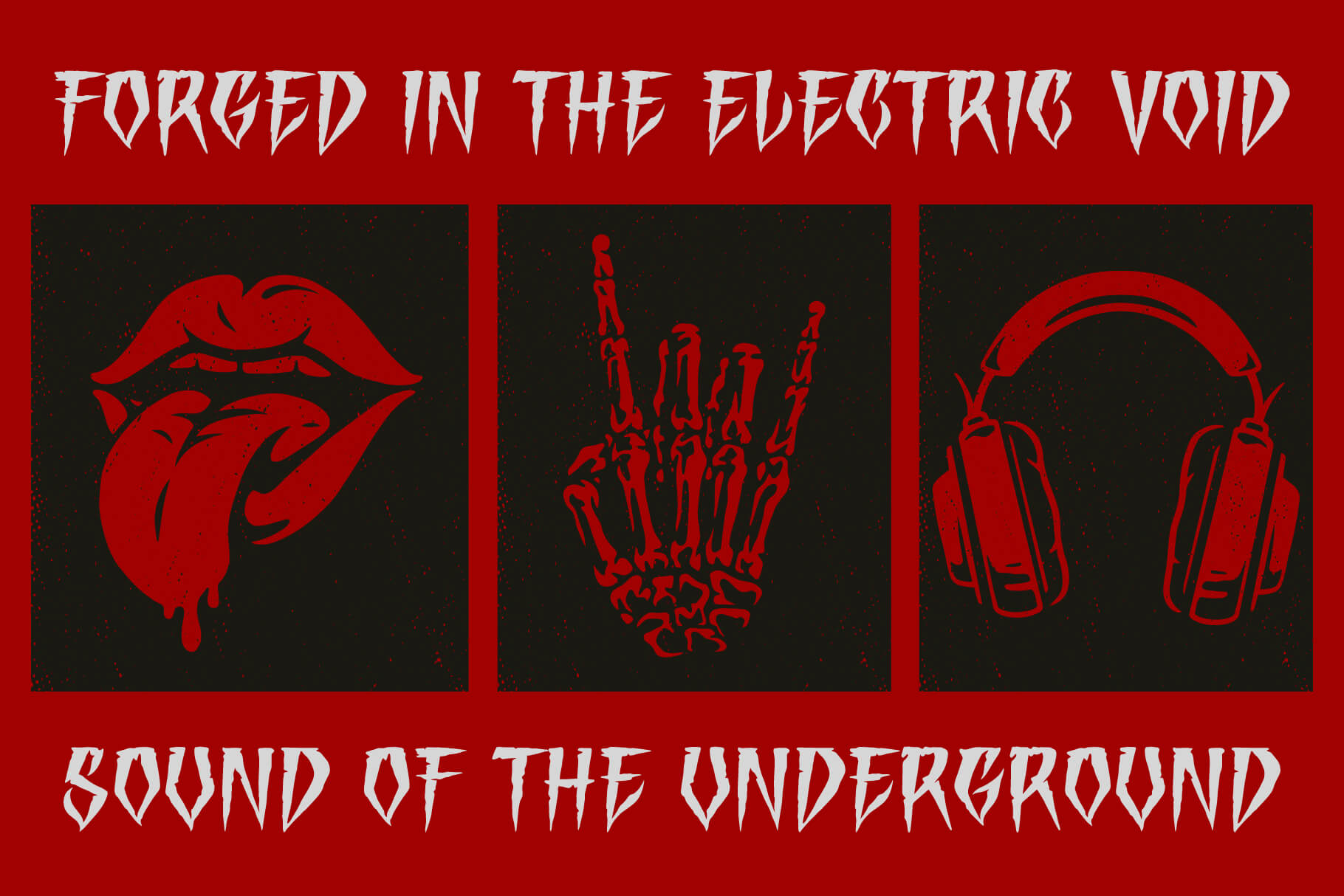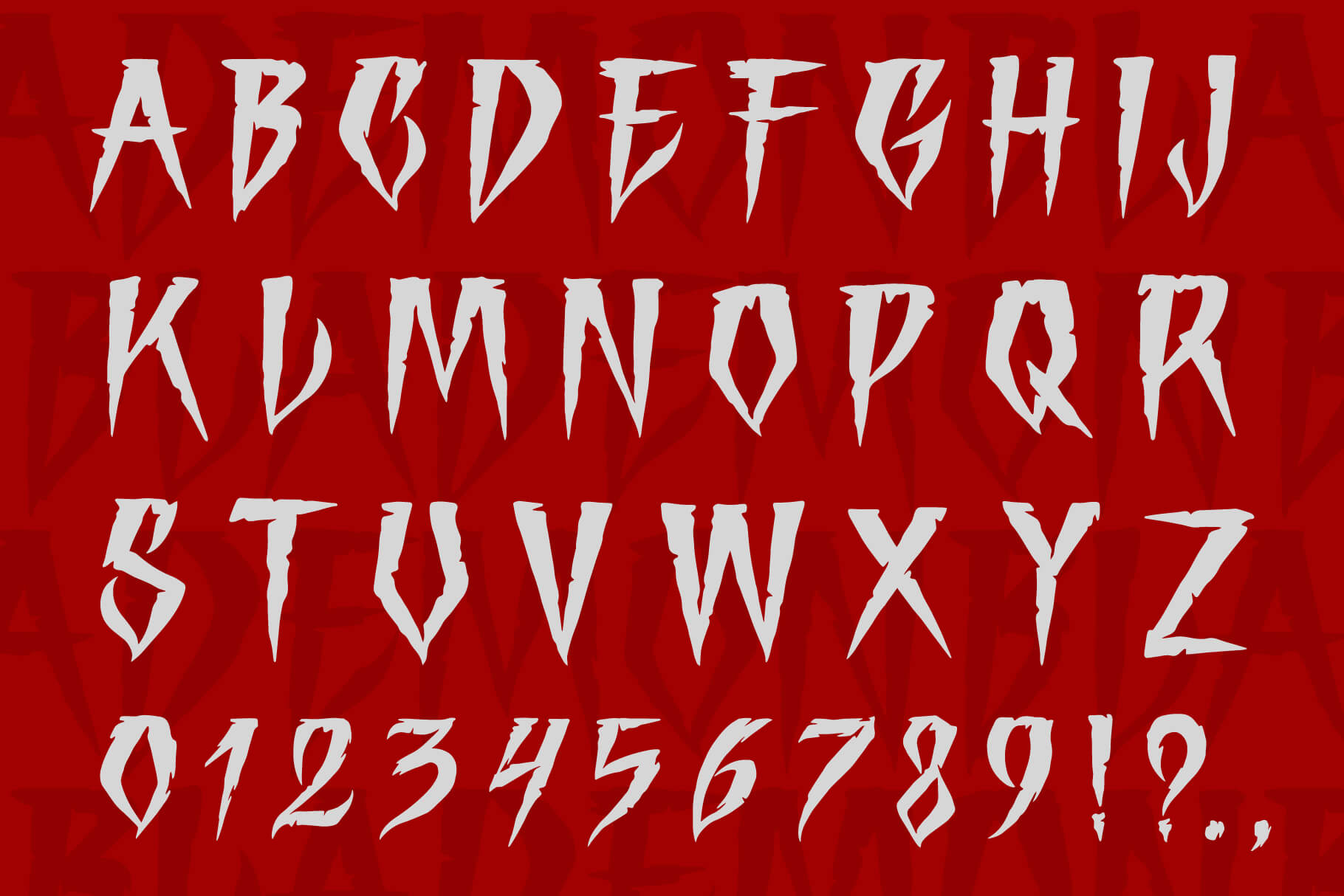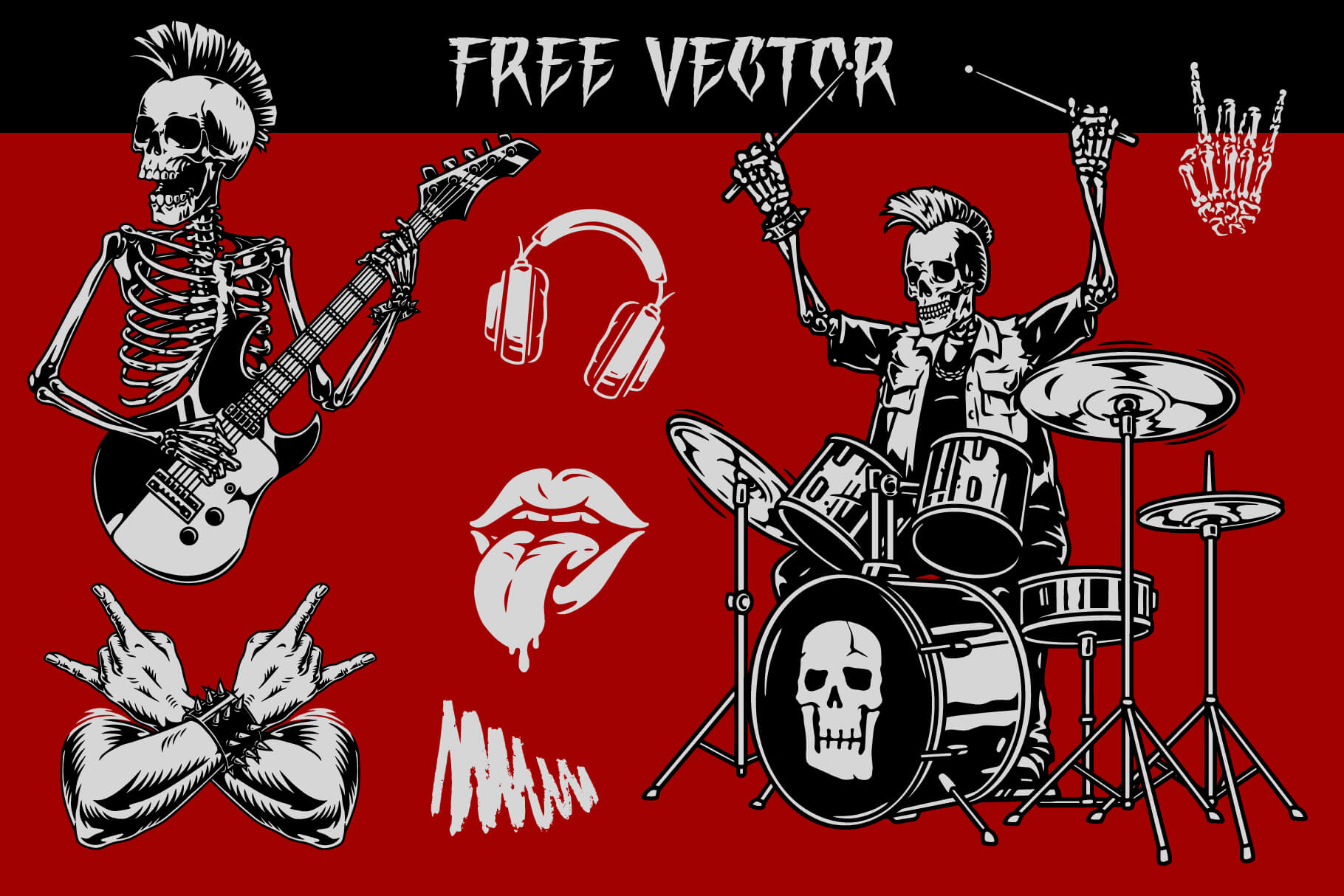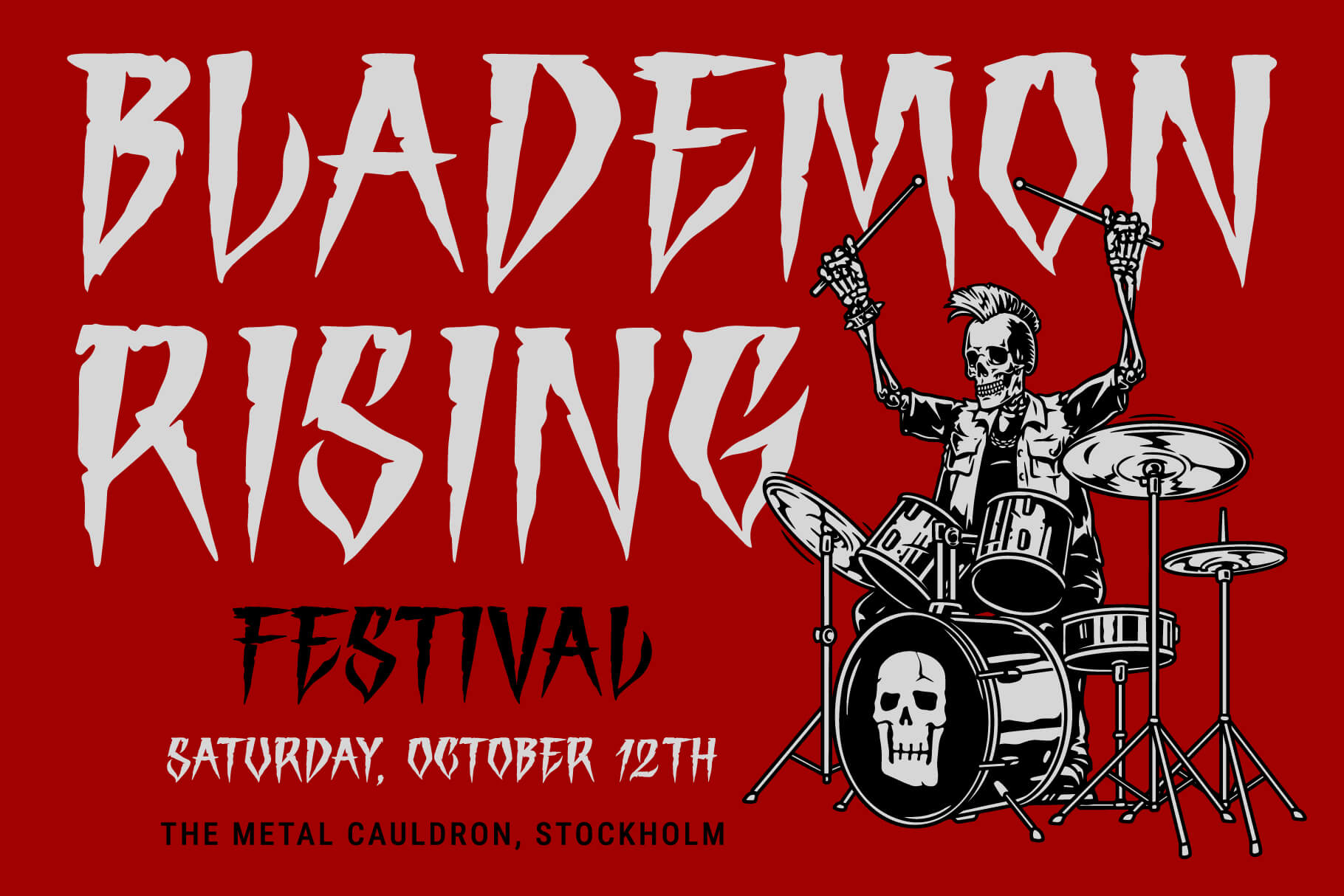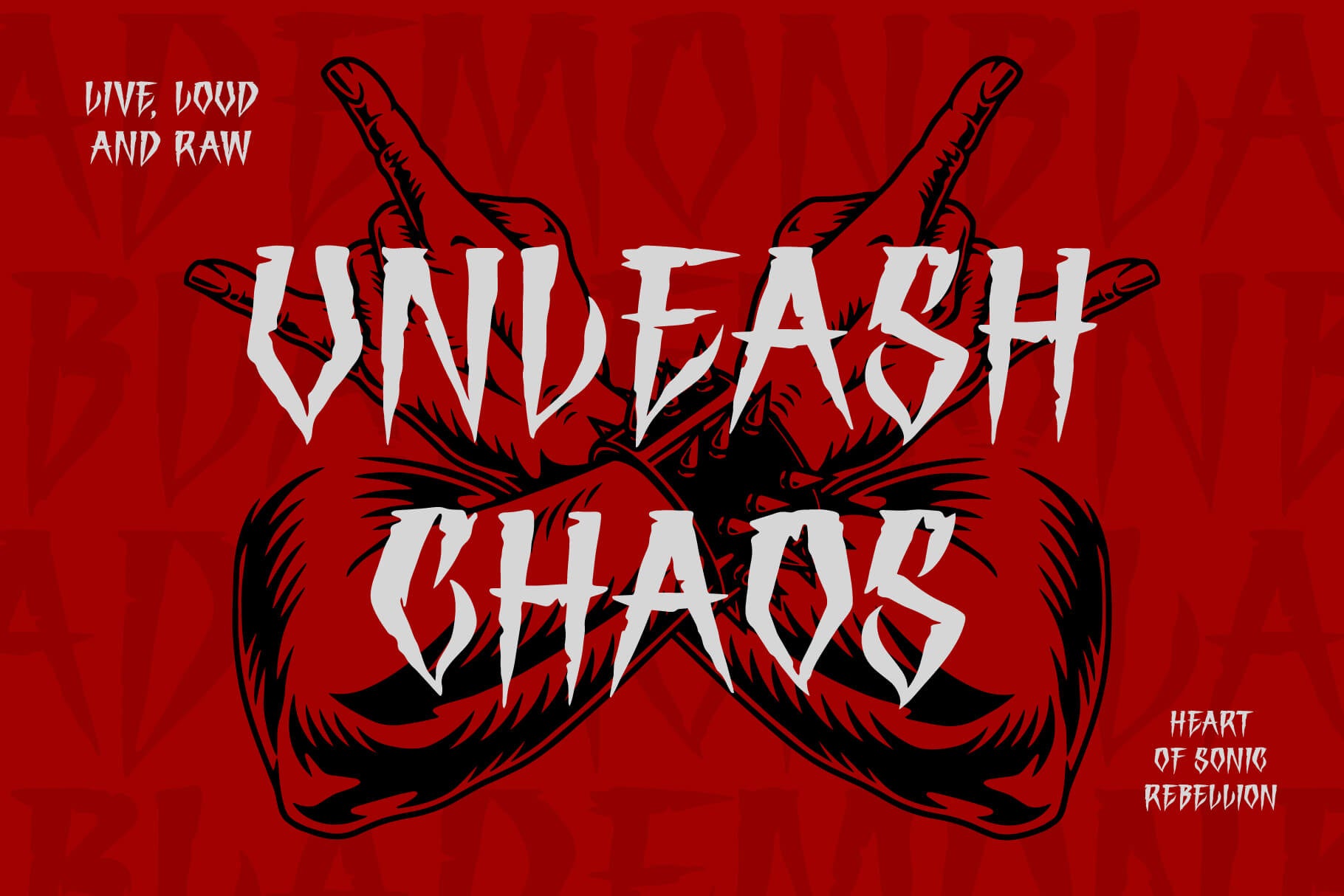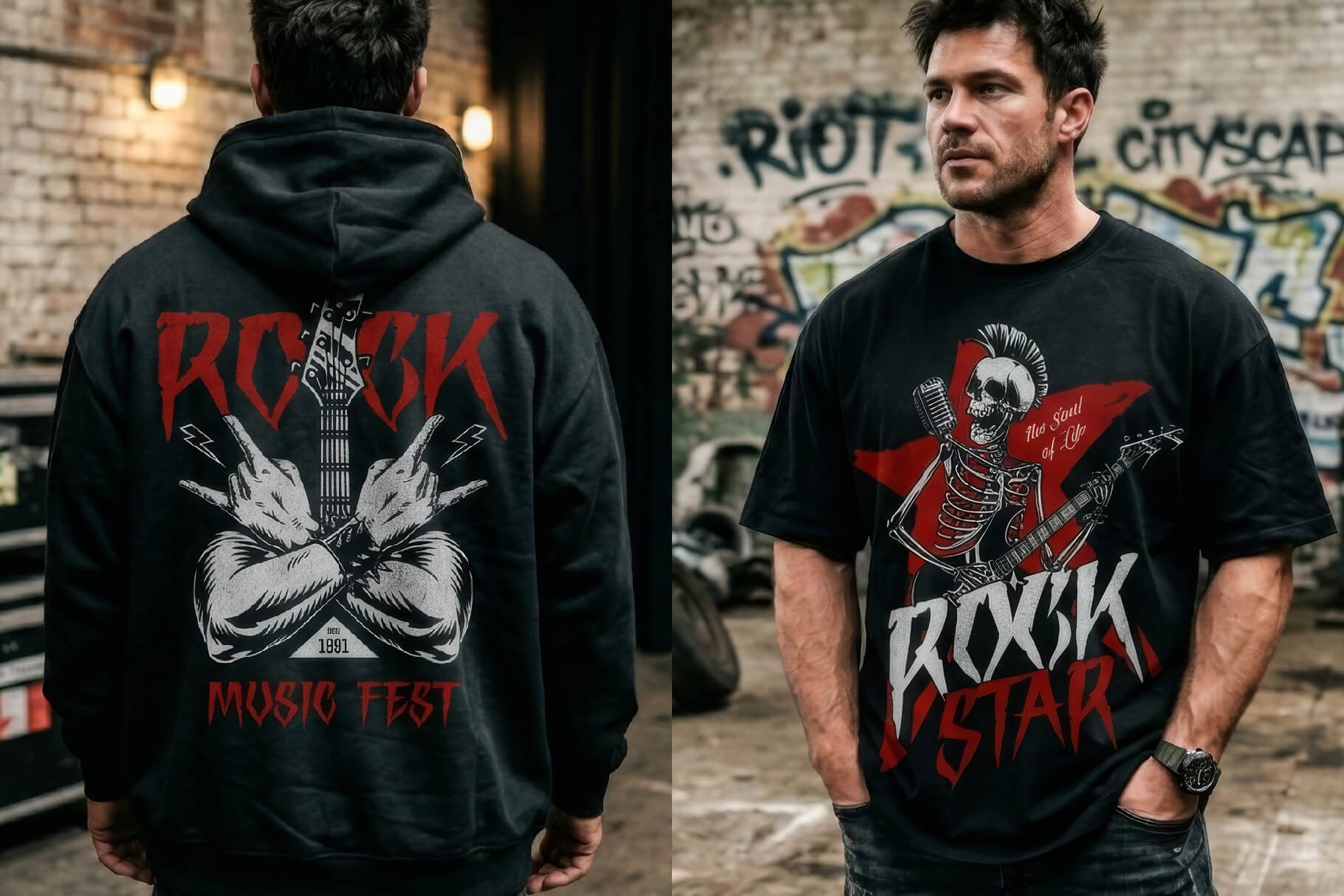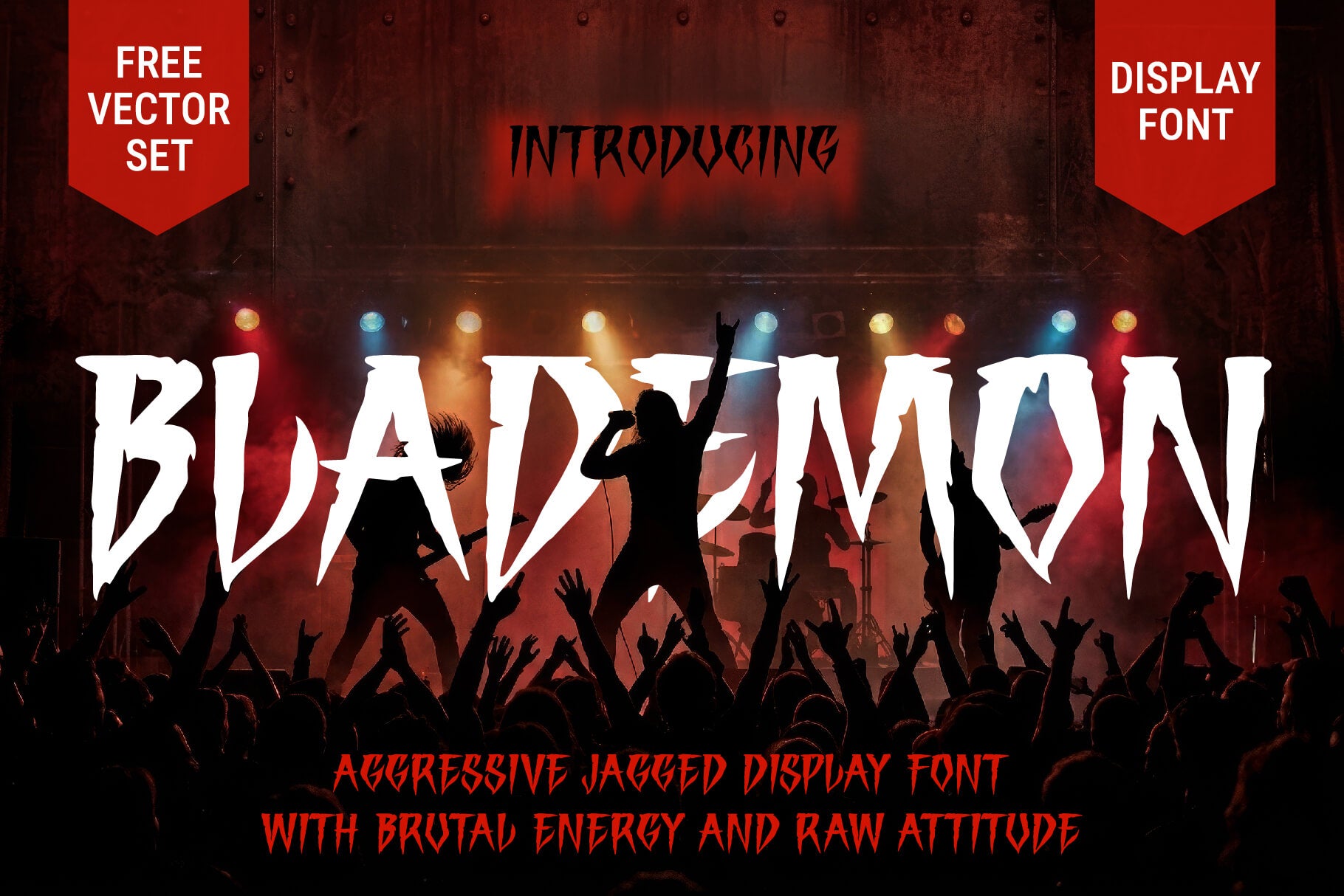
BLADEMON display font
BLADEMON is a sharp, aggressive display typeface with a dark, edged character.
Its spiky, blade-like letterforms bring a fierce, cutting energy to any layout while staying strong and legible at large sizes.
BLADEMON works especially well for metal and gaming branding, horror and streetwear visuals, posters and bold headlines.
IDEAL FOR
– Metal and gaming branding
– Horror and streetwear visuals
– Posters and album covers
– Tattoo and merch art
– Headlines and logos